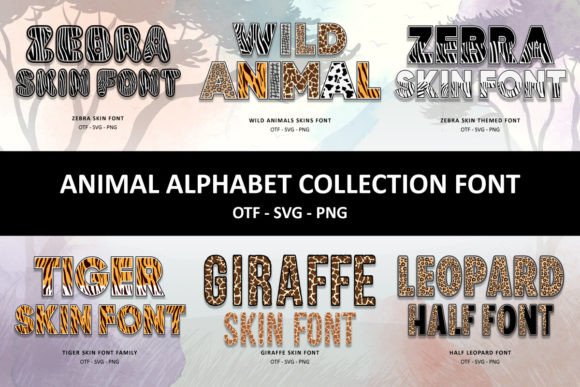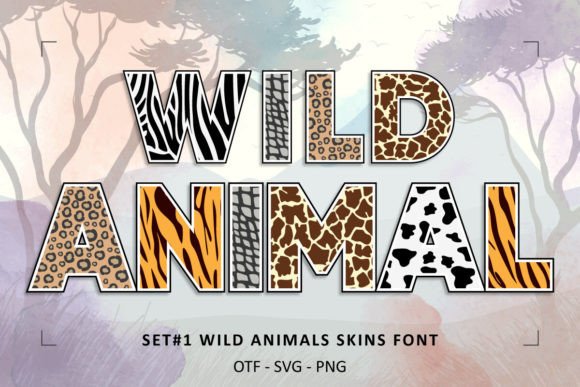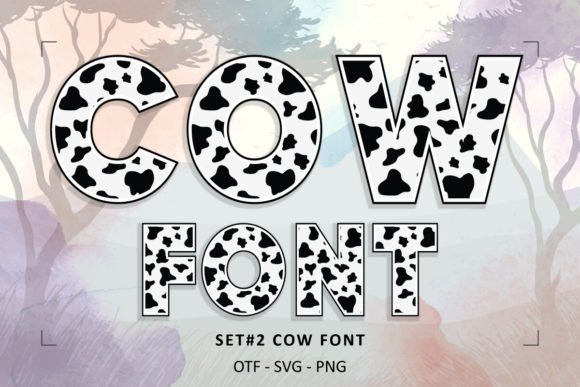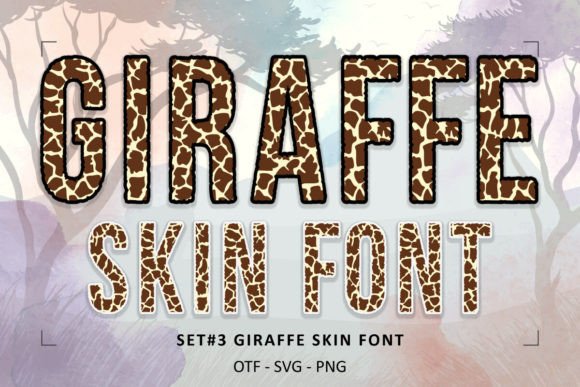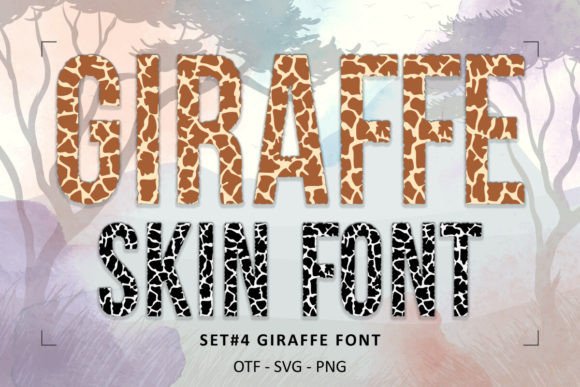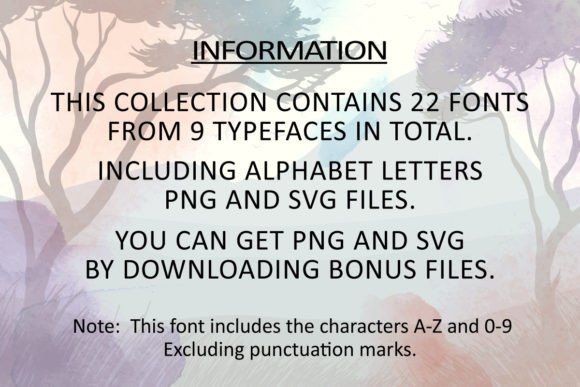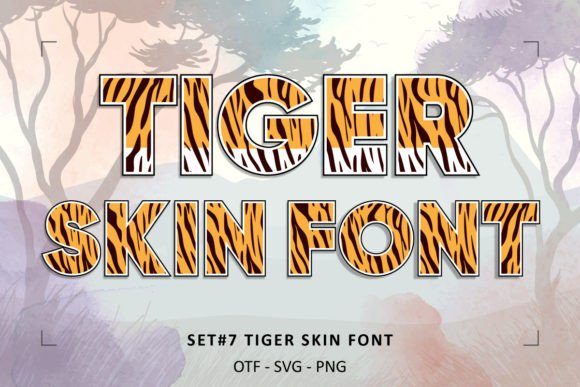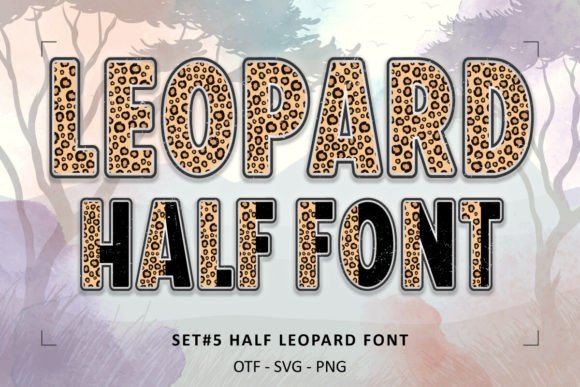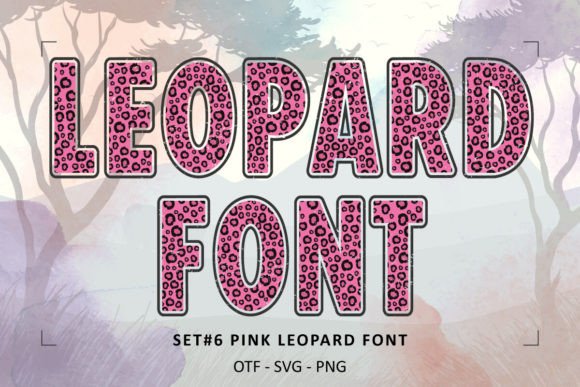
Animal Alphabet Collection Font
Animal Alphabet Collection Font gathers 9 eye-catching It is a captivating font boasting its design’s distinctive Animal skin pattern. for you to use in your upcoming projects. With these unique fonts, you will certainly make your designs stand out!